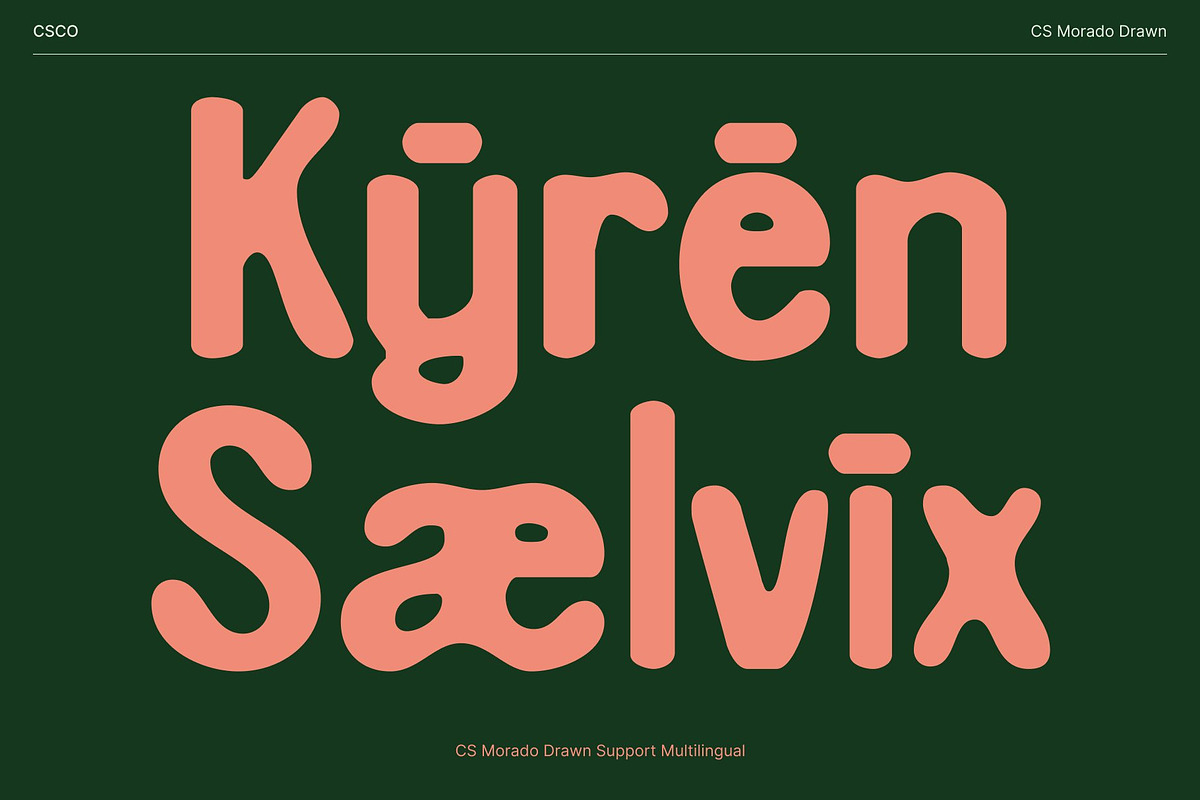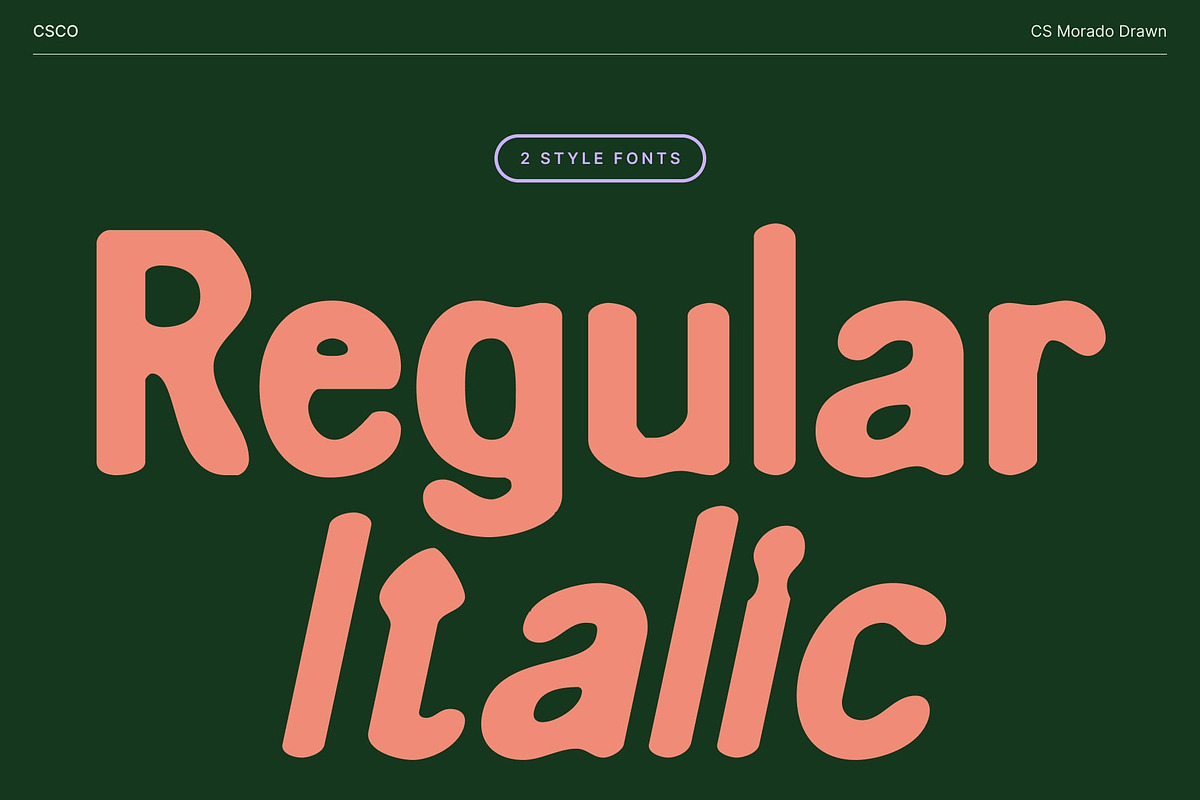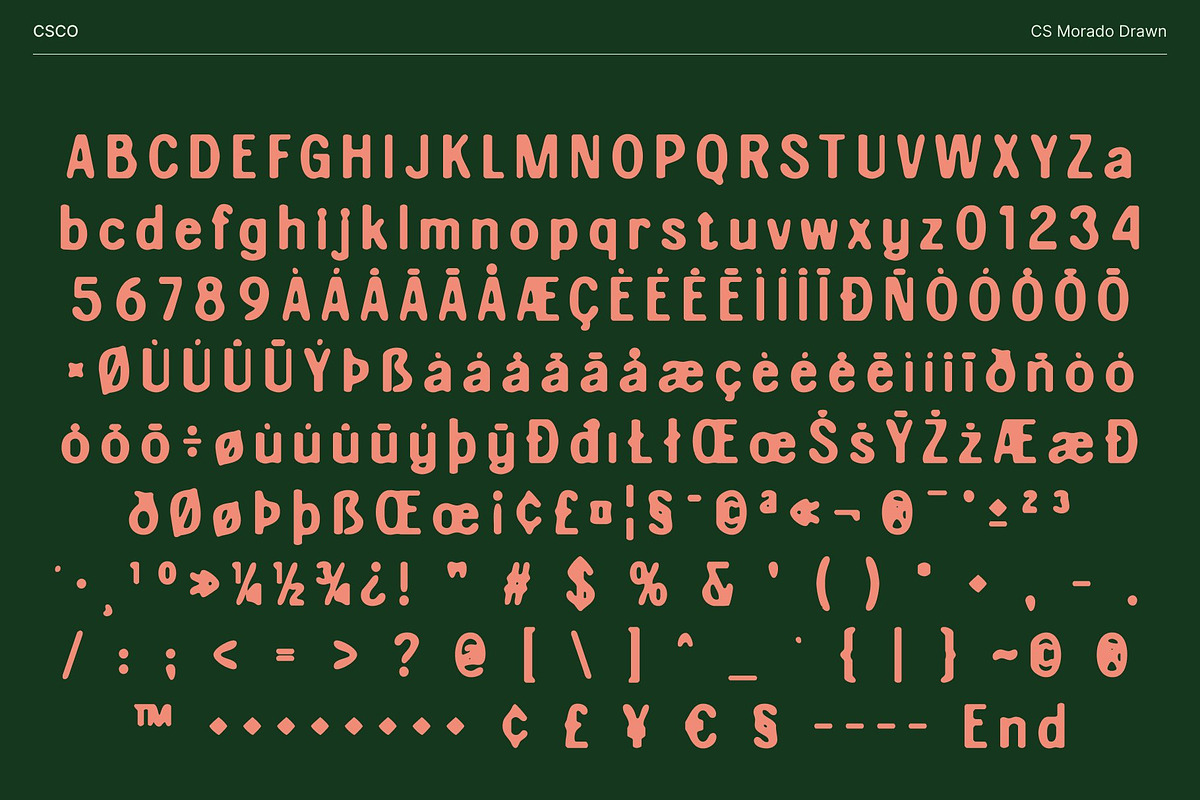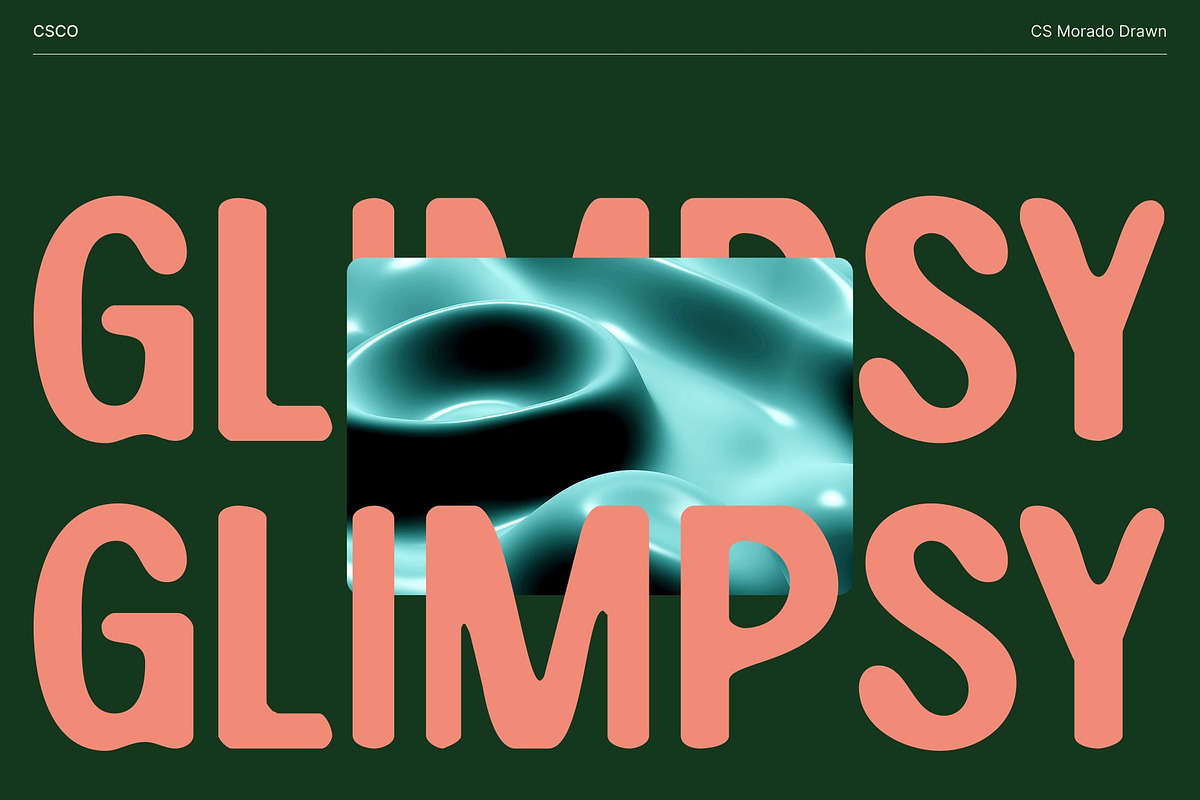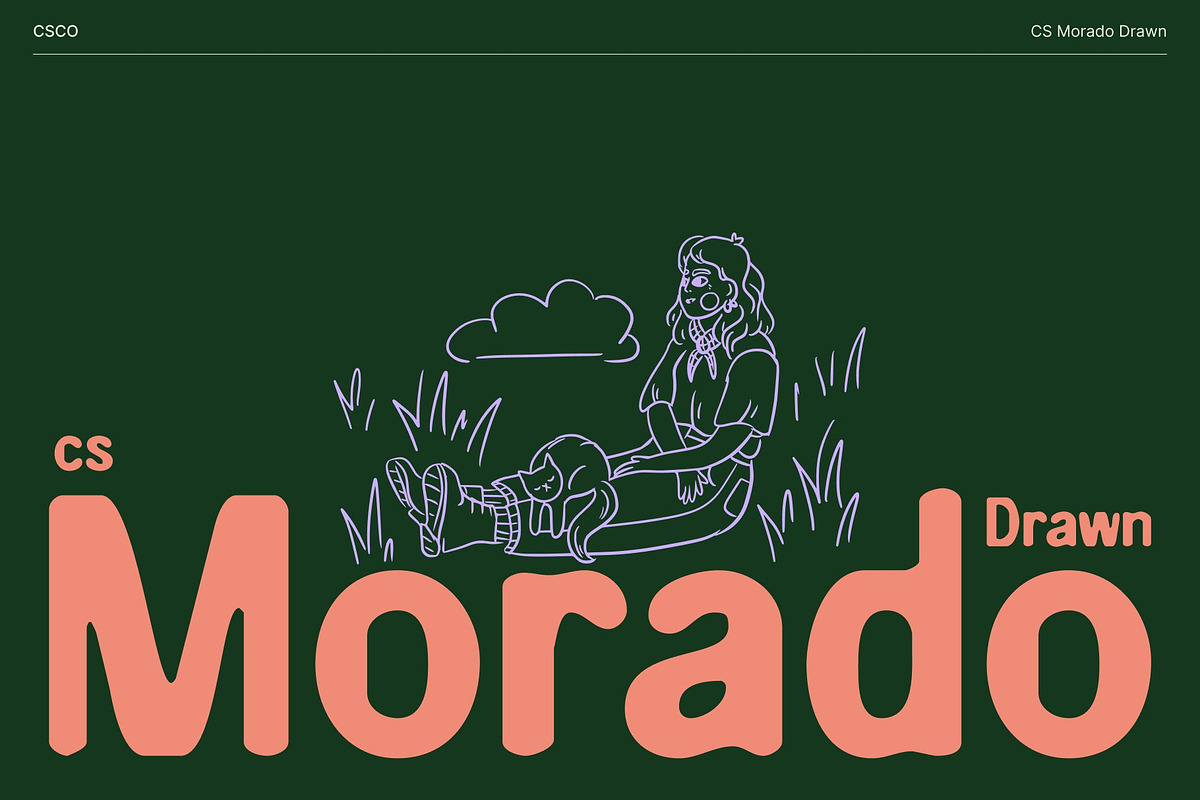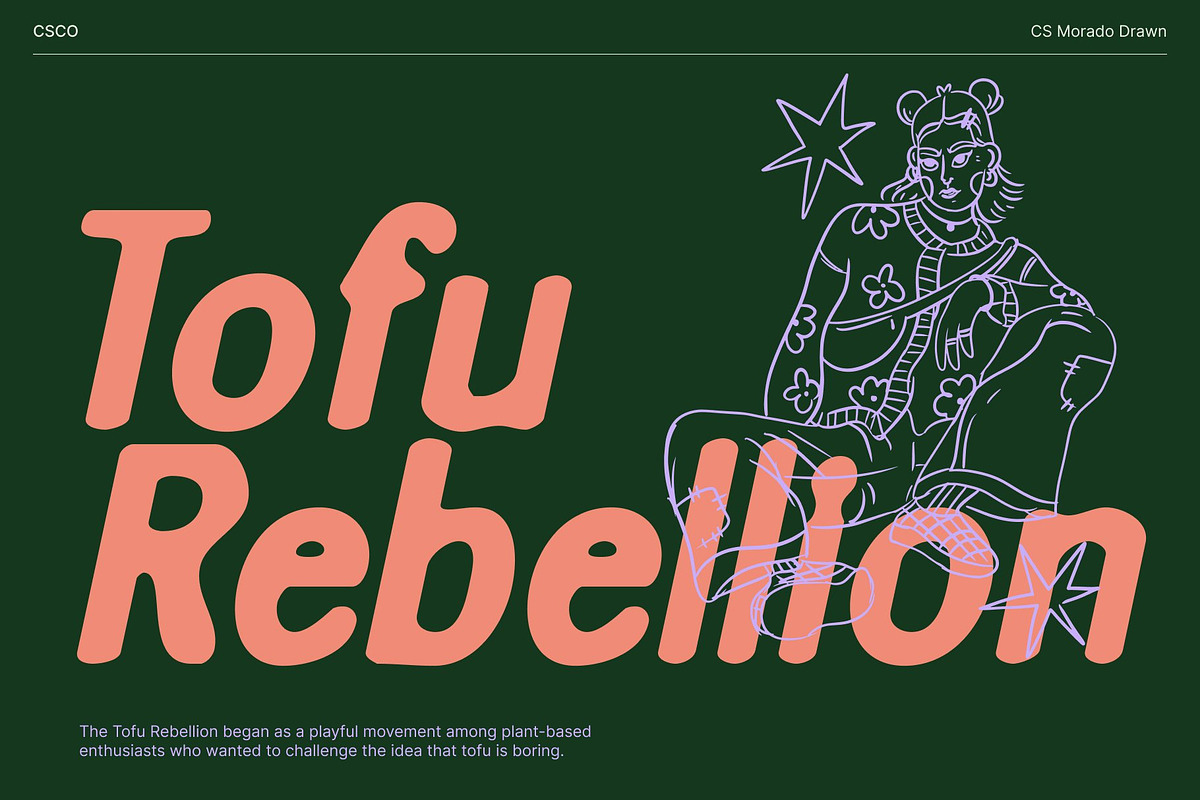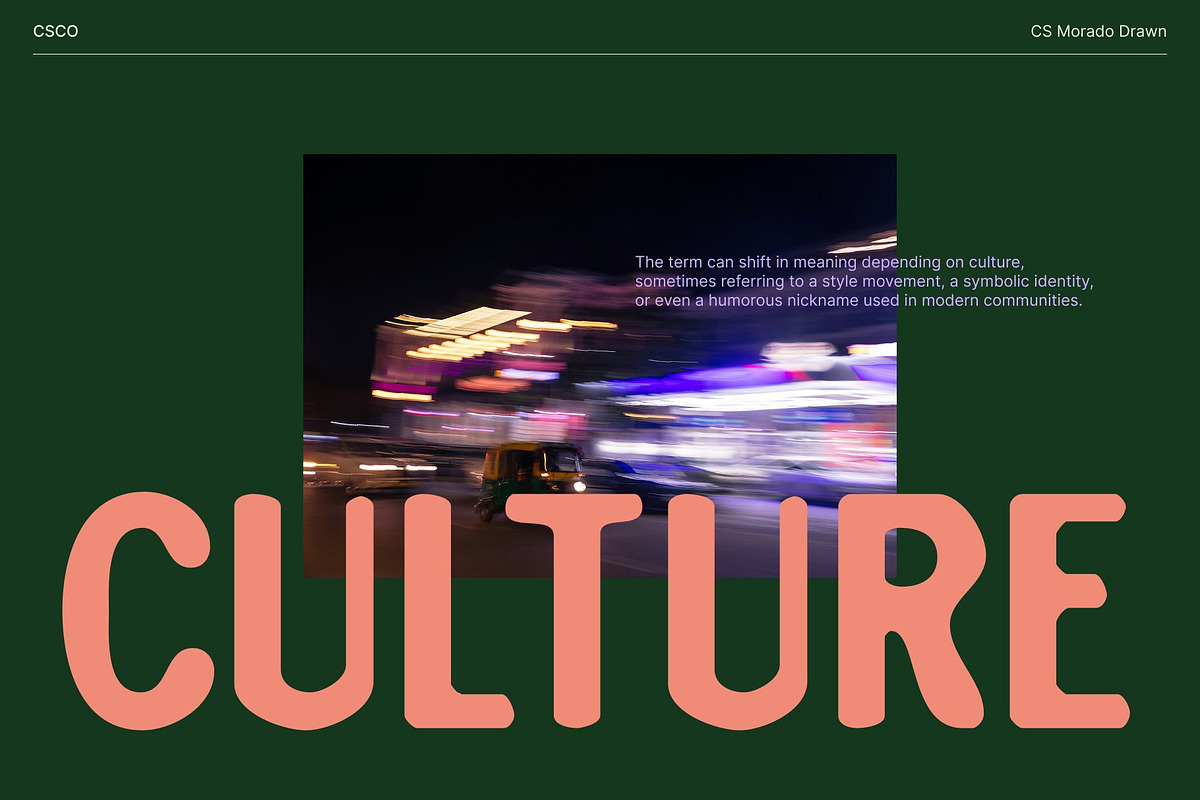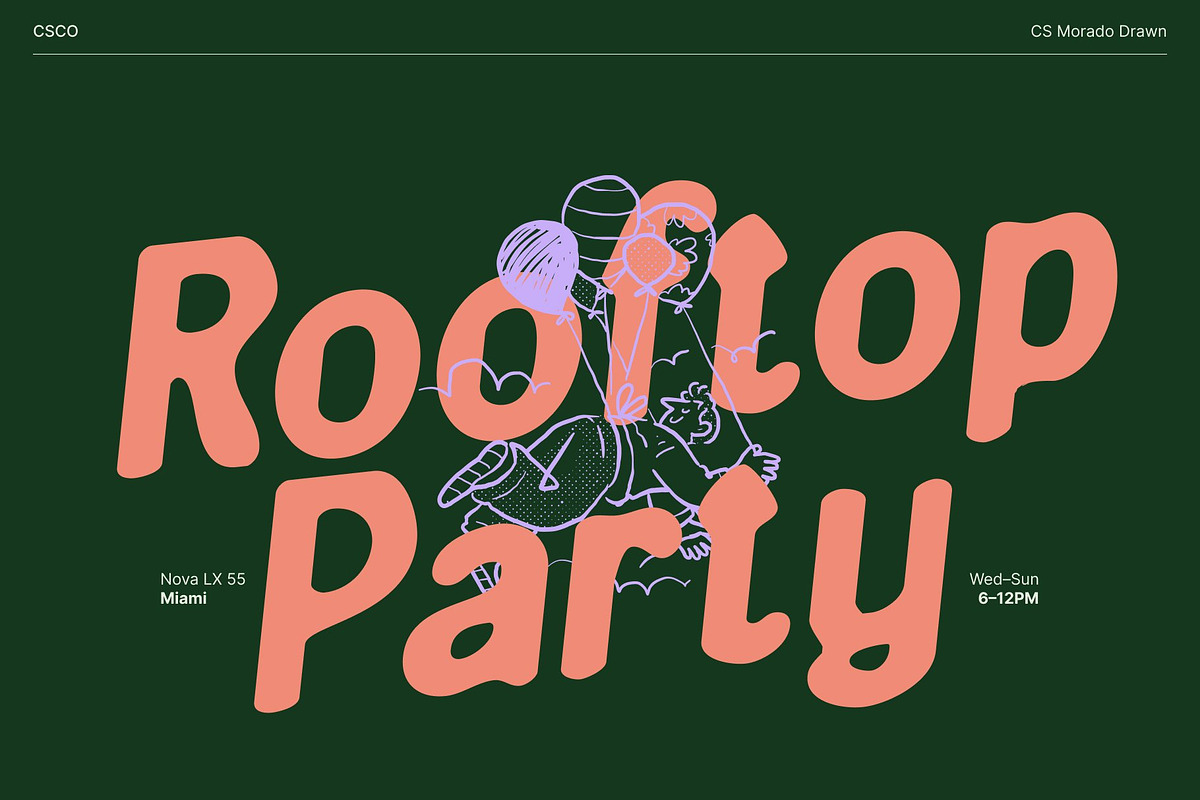
CS Morado Drawn
CS Morado Drawn – Display Sans Serif with Expressive Hand-Drawn Texture
Powerful Letterforms for Maximum Impact This is a bold display sans serif font designed to command attention. Its strong, confident shapes make every letter stand out, creating an immediate visual impact. Perfect for designs that need to convey strength, clarity, and modern appeal, this font excels in high-visibility applications.
Hand-Drawn Texture for Expressive Character The hand-drawn effect adds depth, warmth, and personality to the clean sans serif structure. Each character carries subtle imperfections that bring a dynamic, human touch to the font. This texture enhances its visual interest and ensures that feels both bold and approachable.
Ideal for Branding, Headlines, and Poster Art Versatile and attention-grabbing, works perfectly in branding, promotional posters, headlines, and advertising campaigns. Its strong presence ensures that your messages are noticed, while the handcrafted texture adds an artistic flair that elevates ordinary text into memorable visual statements.
A Bold and Expressive Typeface for Modern Design This font combines the clarity of a modern sans serif with the expressiveness of hand-drawn artistry. It’s a versatile choice for designers seeking a font that balances boldness, personality, and contemporary style. Whether for impactful branding or striking editorial layouts, delivers a commanding and creative typographic presence.